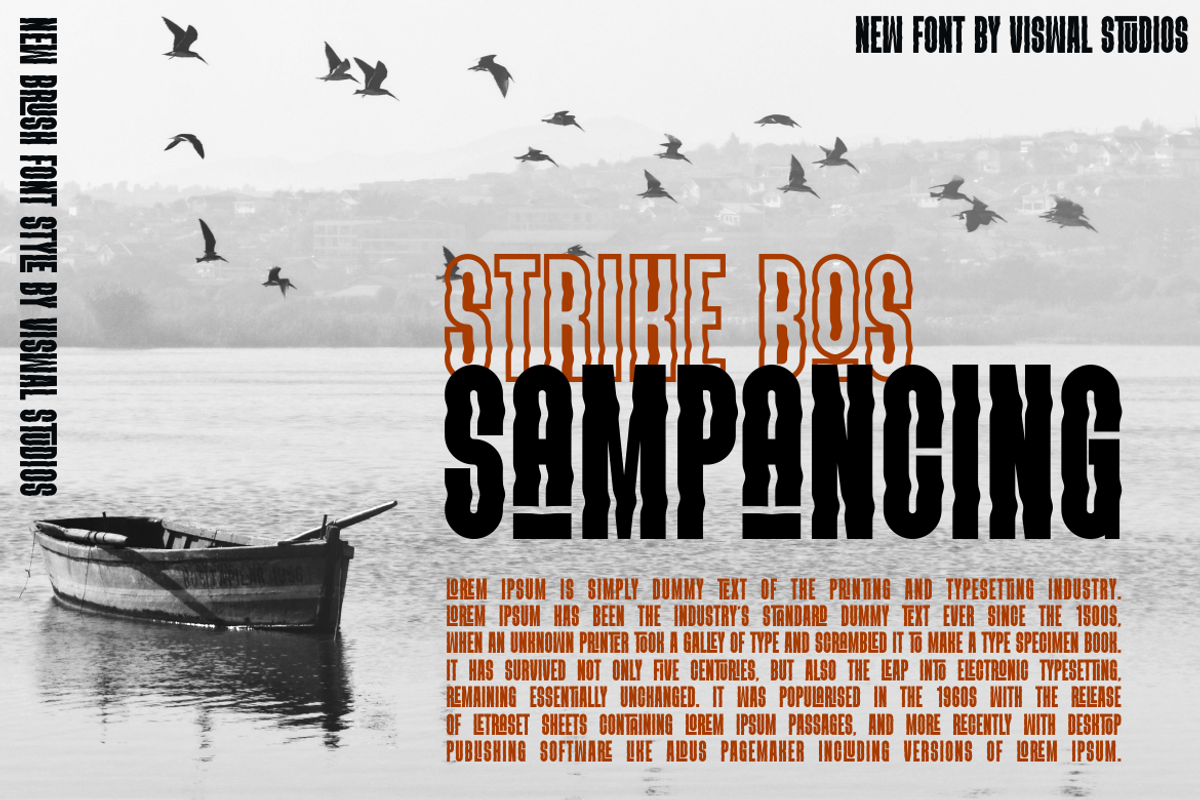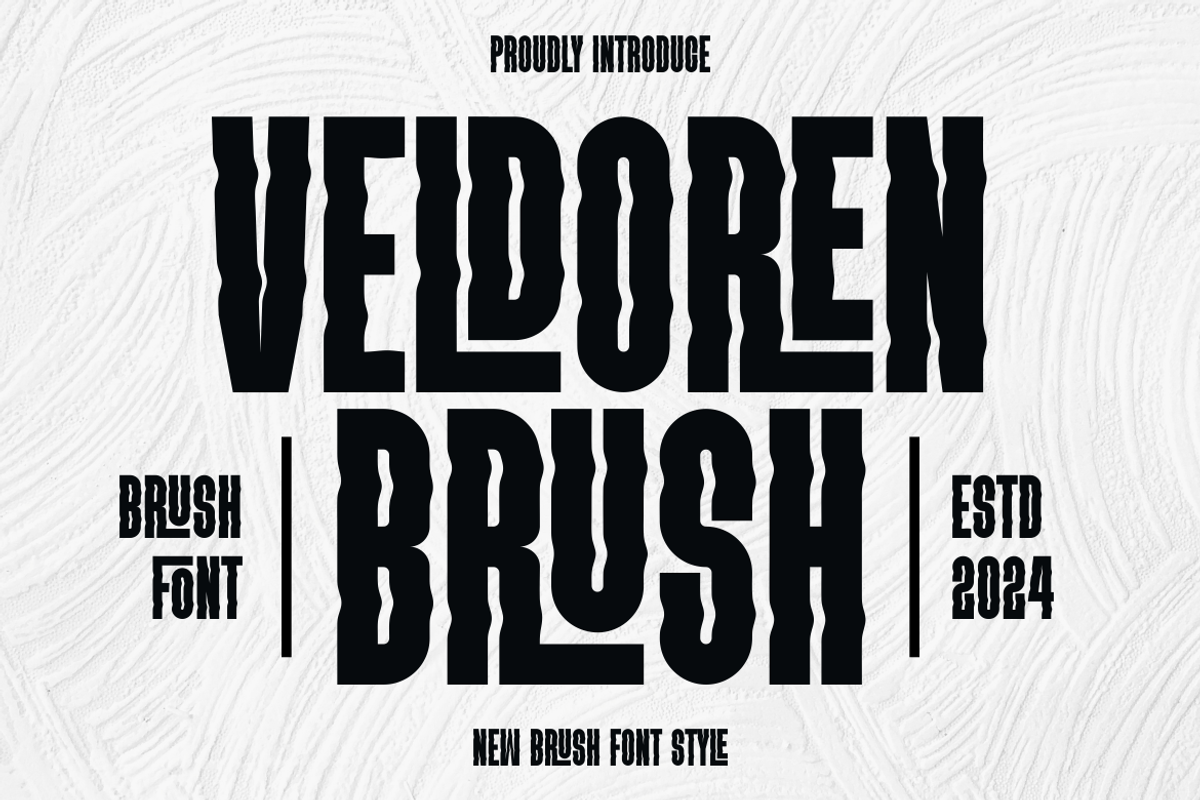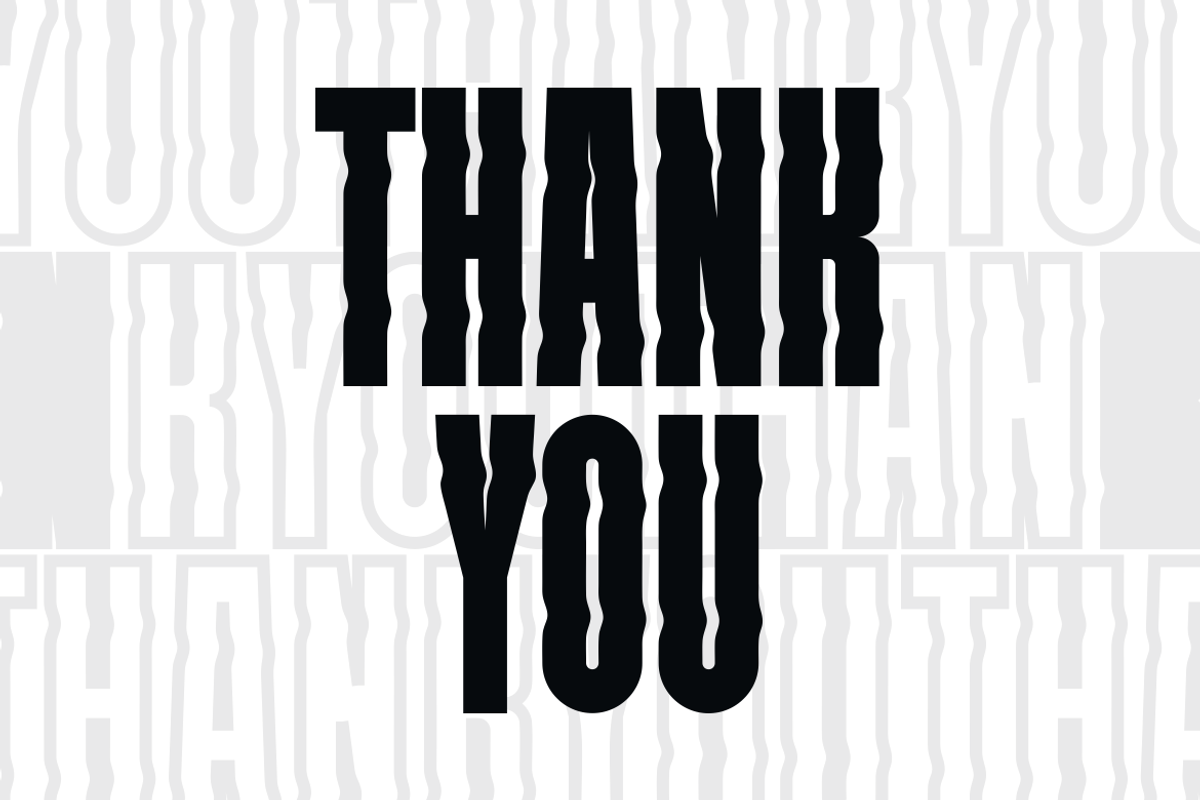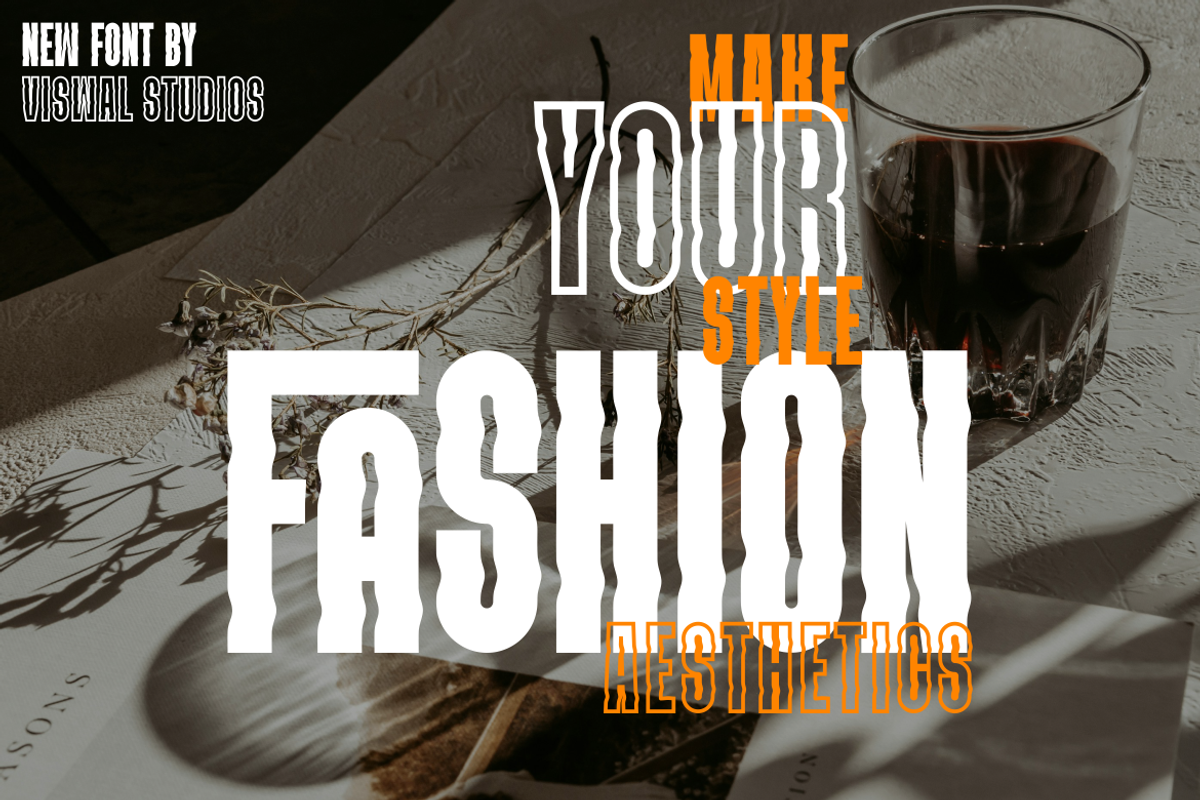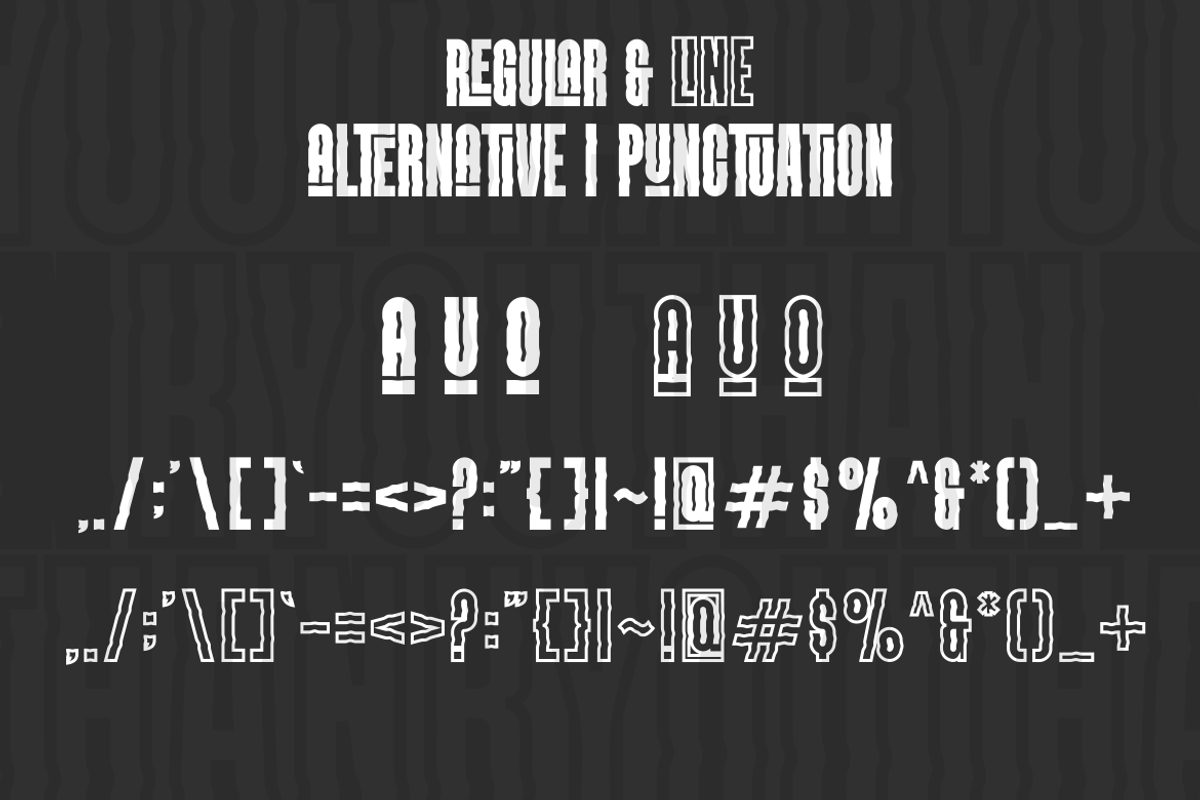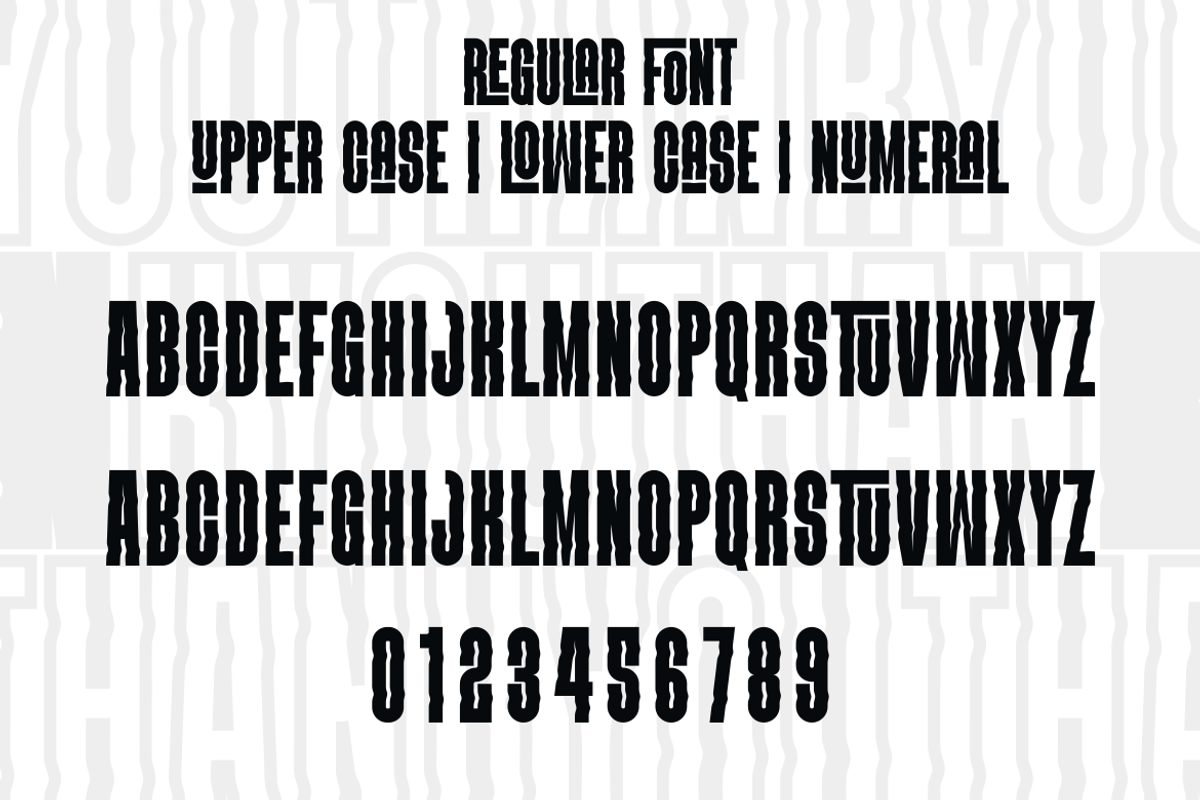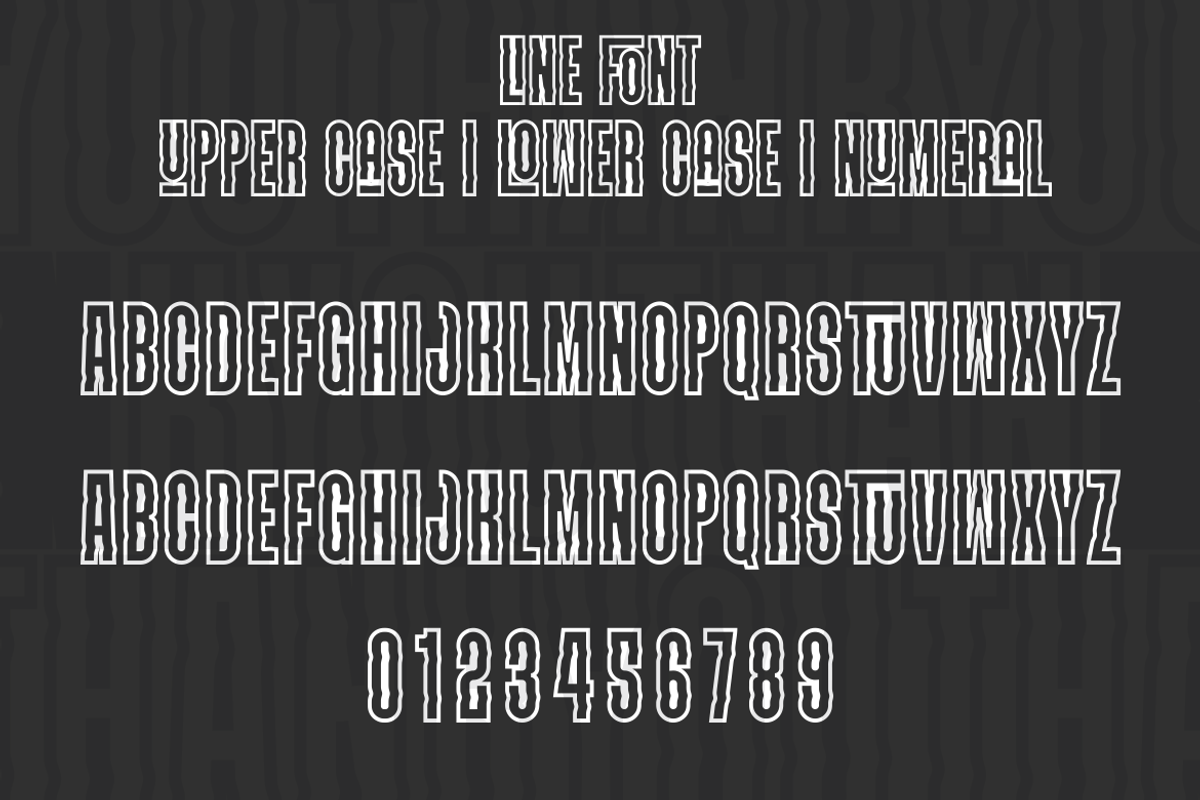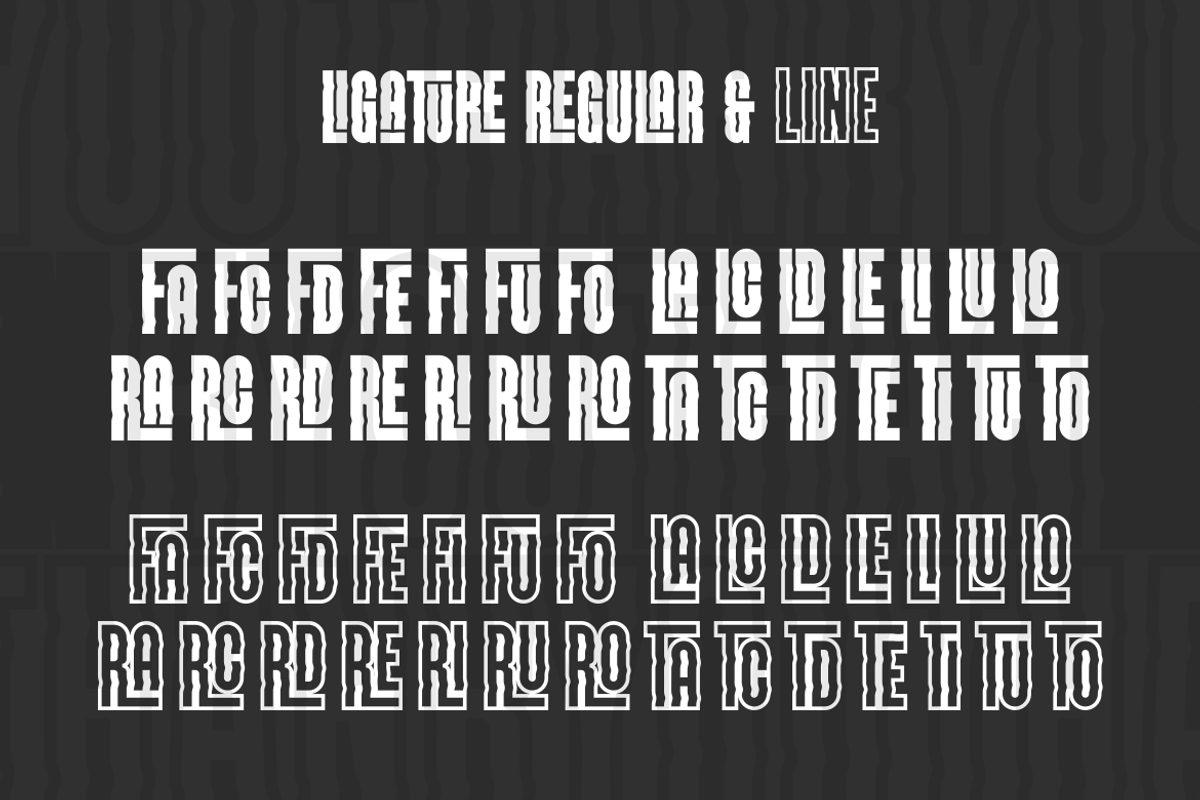
VELDOREN BRUSH - Modern Font
Presenting VELDOREN BRUSH Is A Modern Font.
Can Make It Easier To Convey The Message In Your Design. Font Is Suitable For Logo, Labels, Badge, Branding, Magazine, Poster, Title, Gigs, Covers And Etc. Our Fonts Have Uppercase & Lowercase, Numeral & Punctuation, And Opentype Features. For Amazing Designs You Can Mix With Other Fonts As A Complement.